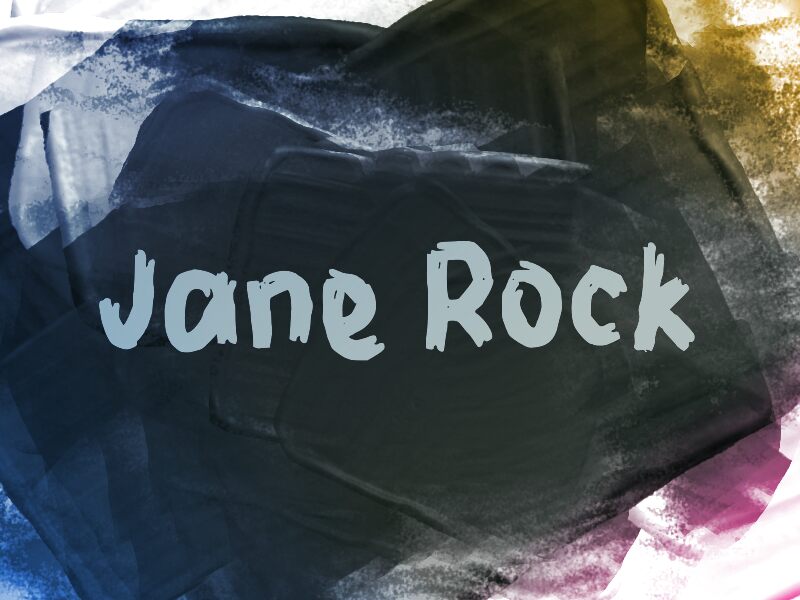
Jane Rock
Jane Rock font by wep is a free brush font that looks like it’s been slapped onto the page with a fat, inky marker. Chunky strokes, rough edges, and slightly wobbling lines give it that loud, handmade energy you get from gig posters and street art stickers. It feels informal and a bit rebellious, but still readable enough to carry a short message at a glance.
Using Jane Rock, this free font shines on band artwork, zines, YouTube thumbnails, skate or streetwear branding, indie product packaging, and bold social posts. Its dense, inky texture grabs attention in headers while staying legible at medium sizes for short phrases. Pair it with a clean, light sans serif for body text to let Jane Rock handle the attitude while the companion typeface keeps things clear and grounded.